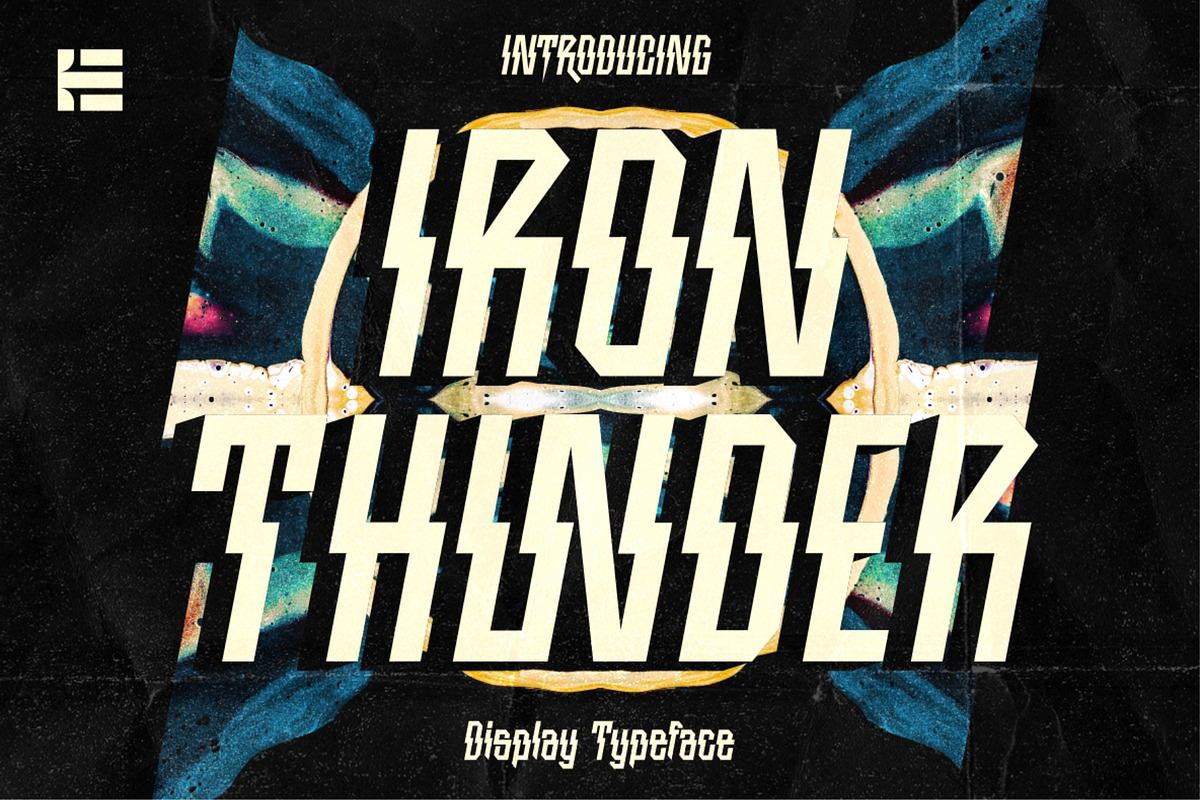
Iron Thunder Font Free Download is a powerful display typeface built for impact. With its bold lines, angular edges, and industrial feel, this font is perfect for sports branding, gaming logos, action-themed posters, heavy metal album covers, and any design that demands a strong, commanding presence.
Its aggressive style and sharp structure give Iron Thunder a rugged personality, making it ideal for high-energy visuals and masculine aesthetics. Whether you're crafting dynamic headlines or intense merch designs, this font adds a thunderous dose of power to your project.